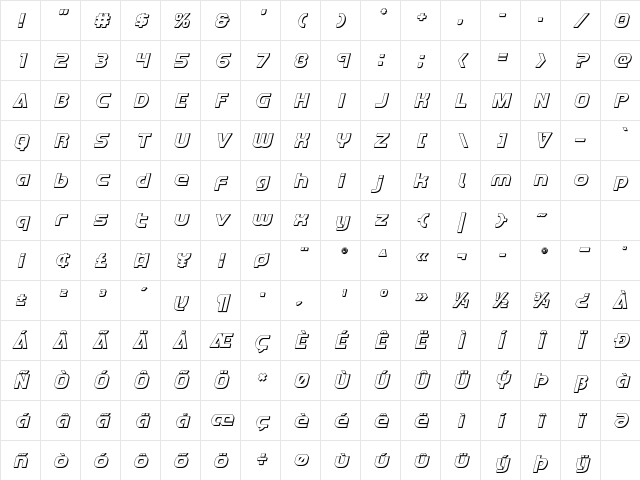
Redline 3D Italic Italic
Design Context for Redline 3D Italic
Redline 3D Italic is a composed and adaptable typeface that performs quietly and consistently across a wide range of design contexts. The slanted form adds forward momentum and visual energy.